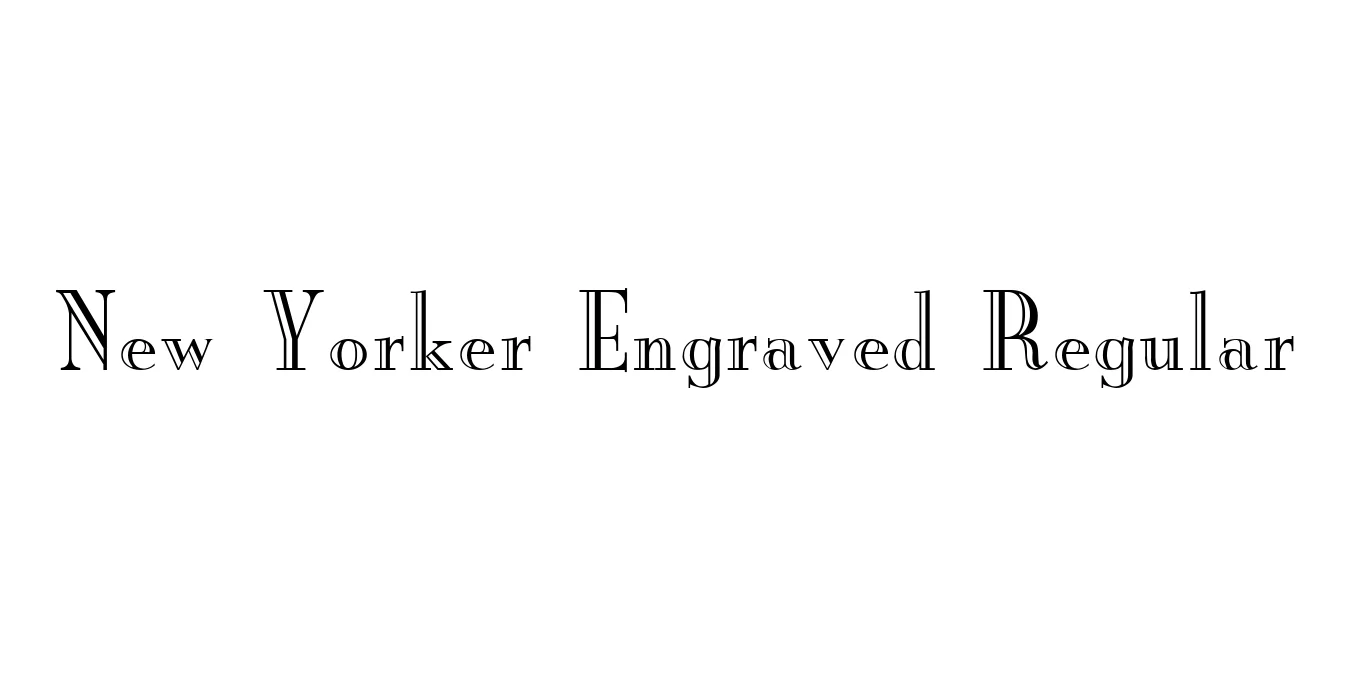
New Yorker Engraved Regular
Designed by Gert Wiescher
| Font Name | New Yorker Engraved |
| Category | Display Serif |
| Designer | Gert Wiescher |
New Yorker Engraved Regular is an elegant display typeface inspired by the iconic masthead of The New Yorker magazine. Originally conceived by the magazine's first art director, Rea Irvin, the letterforms evoke a sense of early 20th-century sophistication and Art Deco flair. The Engraved version specifically adds an inline decorative quality that enhances its classic, editorial aesthetic, providing a sense of depth and architectural structure to the letters.
Modern revivals have preserved the unique proportions and high-waisted characters that define this style. It is characterized by its high contrast and distinctively stylish flair, making it a staple for projects requiring a touch of vintage New York elegance or high-end journalistic branding. This timeless typeface continues to be a favorite among designers who want to capture a specific era of American literary and cultural history.
New Yorker Engraved Regular Best Uses
Perfect for magazine mastheads and high-end publication layouts.
Ideal for luxury brands seeking a vintage, sophisticated identity.
Great for promotional materials that require a classic Art Deco aesthetic.
Adds a touch of class to formal event invites and wedding stationery.